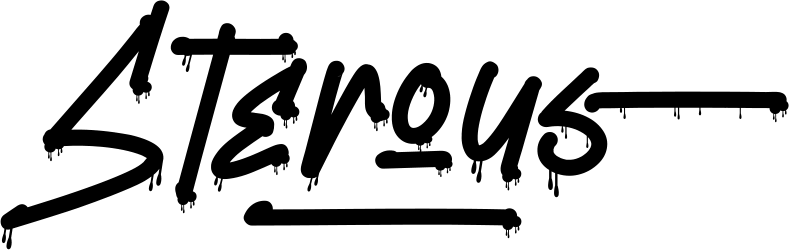
Sterous Font
Sterous with strange and attention-grabbing letters can level up your layouts and amaze everyone. You can make use of this graffiti font for various projects like; video clips, artistic works, games, etc. Just pay attention that some numbers aren’t involved. Get it now and see how amazing the outcome will appear.